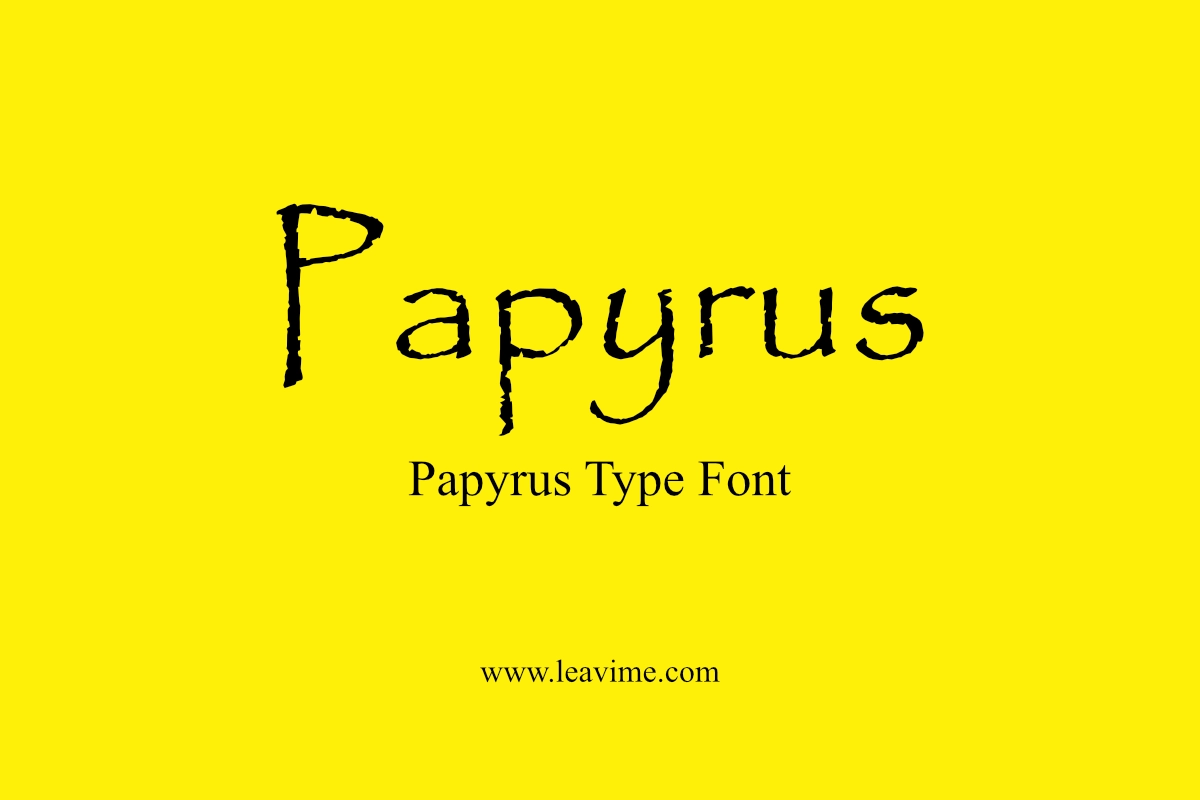
When it comes to choosing a typeface for creative projects, few fonts capture attention like Papyrus. Known for its distinctive, textured appearance, Papyrus has become a go-to choice for designers seeking an artistic, organic look. If you’re searching for a Papyrus type font free download, you’ve come to the right place.
What is the Papyrus Font?
The Papyrus font is a decorative typeface that combines a hand-drawn aesthetic with a textured, ancient look. Designed to mimic the appearance of old scripts, it is instantly recognizable and widely used across various media.
History and Design Characteristics of Papyrus
The Origins of Papyrus
Created in 1982 by Chris Costello, the Papyrus font was intended to resemble the historical writing found on ancient scrolls. Costello combined elements of calligraphy with a weathered texture to create a font that feels both timeless and artistic.
Key Design Features
- Distinctive Texture: Papyrus features uneven edges and rough strokes, giving it an organic, handmade feel.
- Unique Letterforms: The font has a mix of sharp and rounded elements, making it stand out from traditional sans-serif or serif fonts.
- Neutral Elegance: Despite its detailed texture, Papyrus retains readability, especially at larger sizes.
Why Choose Papyrus for Your Projects?
Papyrus is an excellent choice when you want to evoke themes of history, nature, or creativity. Its versatile design works well in:
- Artistic projects
- Branding for organic or eco-friendly products
- Invitations for themed events
However, it’s essential to use it sparingly to avoid overuse or cliché.
Common Applications of Papyrus
1. Graphic Design
Many designers use Papyrus for logos, posters, and promotional materials. Its textured look makes it ideal for eye-catching visuals.
2. Product Packaging
From skincare products to artisanal foods, Papyrus often appears in packaging that emphasizes natural or handcrafted qualities.
3. Movie Titles
One of the most famous uses of Papyrus is in the title design for the movie Avatar.
4. Event Invitations
Its unique style makes it a popular choice for weddings, parties, and themed events.
Controversies and Criticisms Surrounding Papyrus
While Papyrus is loved by many, it has also faced criticism for being overused. Some designers argue that its distinct look can become cliché if not used thoughtfully. This has led to humorous critiques, such as the Saturday Night Live skit parodying its use in Avatar.
Tips for Using Papyrus Effectively in Design
To make the most of Papyrus, follow these tips:
- Pair It Wisely: Combine Papyrus with clean, modern fonts to balance its textured look.
- Use It Sparingly: Avoid using Papyrus for body text or overly large blocks of text.
- Match the Theme: Ensure the font aligns with the overall tone and purpose of your project.
Alternatives to Papyrus Font
If Papyrus isn’t quite what you’re looking for, consider these alternatives:
- Garamond: For a classic, elegant look.
- Luminari: A medieval-inspired typeface.
- Trajan Pro: A professional, serif font often used in movie posters.
Enhancing Your Projects with Papyrus
Papyrus can elevate your designs when used thoughtfully. Whether you’re working on a branding project or an event invitation, its unique aesthetic can add a touch of artistry and sophistication. Just remember to keep it balanced and context-appropriate.
4. Why is Papyrus considered controversial?
Papyrus has faced criticism for being overused and sometimes misused in design projects, leading to its reputation as a cliché font.